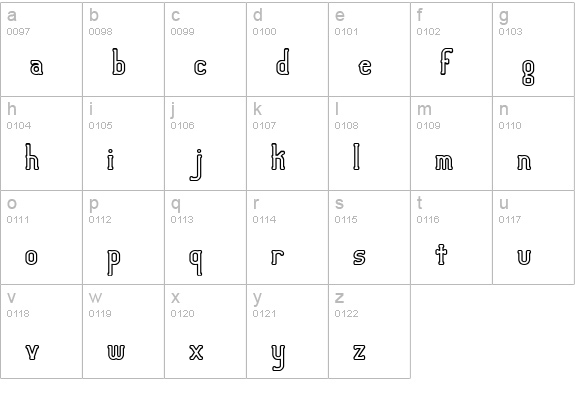
Lucid Type B Outline BRK font is a modern and stylish typeface that exudes sophistication and professionalism. With its clean lines and sharp edges, this font is perfect for creating eye-catching designs and projects. The outline style adds a unique and contemporary touch to any text or graphic. What makes Lucid Type B Outline BRK font even better is that it is completely free to download at FontsMarket.com. Whether you are working on a personal project or a professional design, this font is a great choice for adding a touch of elegance and flair. Don't miss out on the opportunity to enhance your creations with this sleek and versatile font. Download Lucid Type B Outline BRK font today and take your designs to the next level!